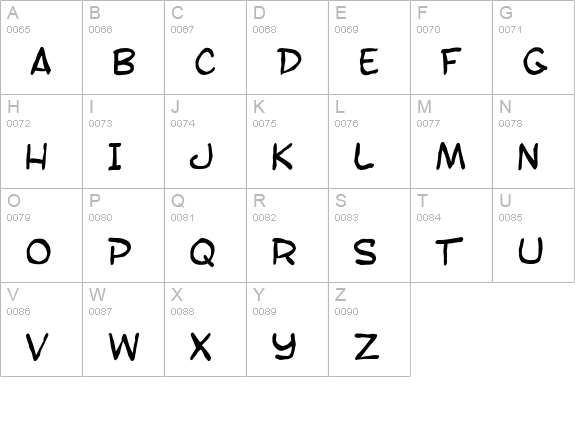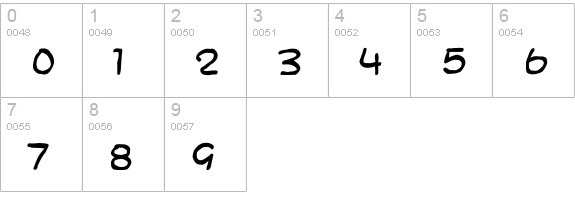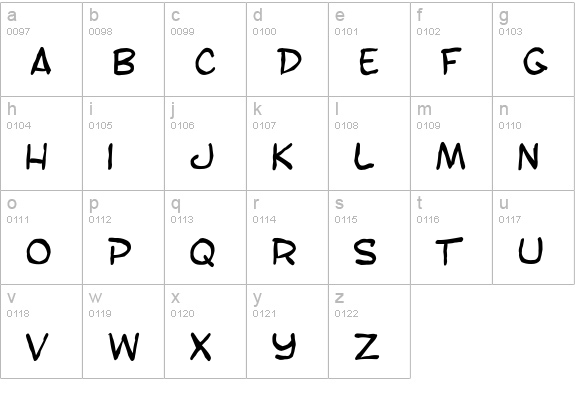
SF Toontime Blotch Font Details
SF Toontime Blotch is a playful and whimsical font that adds a touch of animated charm to any design project. With its unique hand-drawn style, this font is perfect for capturing the essence of fun and imagination. Featuring a variety of bold and exaggerated letterforms, SF Toontime Blotch stands out from the crowd and brings a sense of joy to any text. Each character is carefully crafted with personality and flair, making it ideal for children's books, cartoons, or any design project that requires a touch of lightheartedness. One of the best things about SF Toontime Blotch is that it is available for free! You can easily download this font at FontsMarket.com and start using it in your designs right away. Whether you're a professional designer or a hobbyist, this font offers endless creative possibilities without breaking the bank. The versatility of SF Toontime Blotch is another key feature. It can be used in a wide range of design applications, including posters, logos, packaging, invitations, and more. Its cheerful and animated appearance instantly captures attention and adds a playful twist to any project. SF Toontime Blotch is also incredibly easy to use. Its clean and well-defined letterforms ensure legibility, even when used at smaller sizes. The font is available in various weights and styles, allowing you to find the perfect fit for your design needs. So, if you're looking to inject some fun and creativity into your next design project, look no further than SF Toontime Blotch. Download this font for free at FontsMarket.com and let your imagination run wild. Whether you're designing for children or simply want to add a touch of whimsy to your work, SF Toontime Blotch is the perfect font to bring your ideas to life.